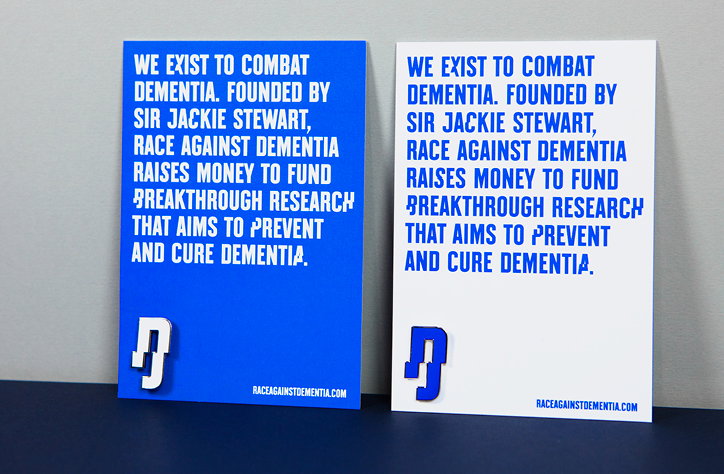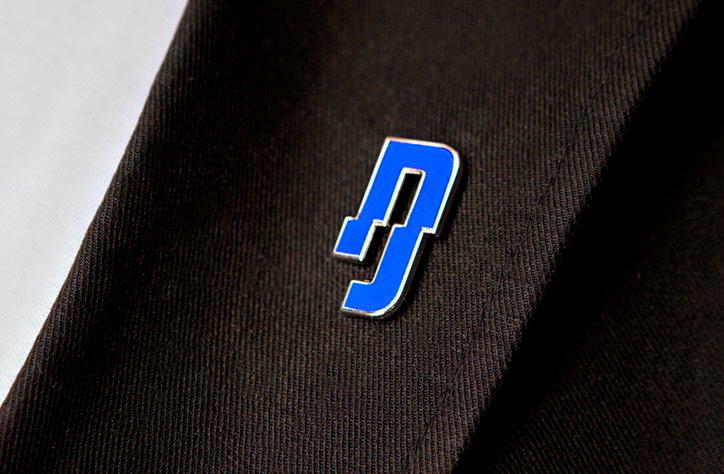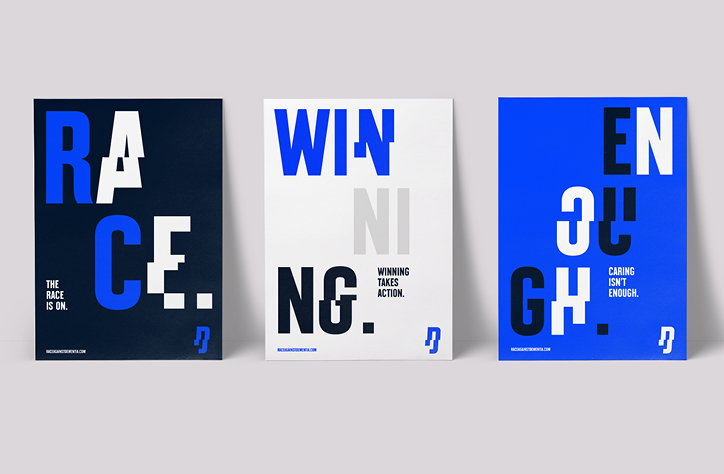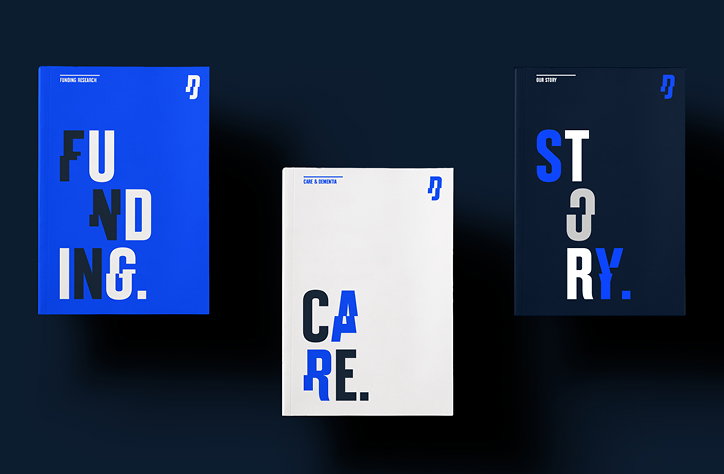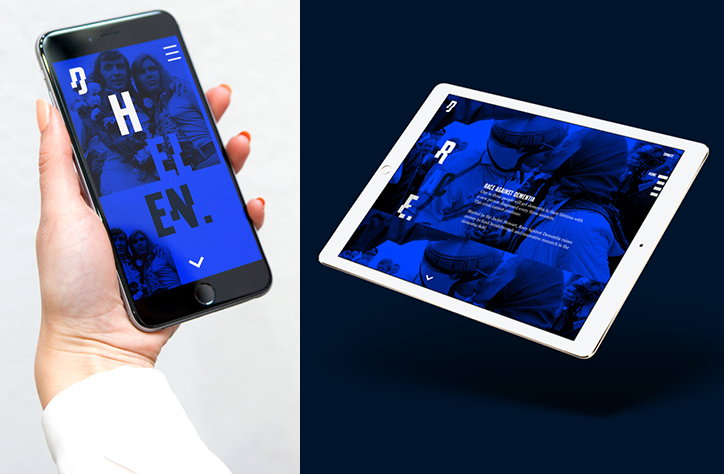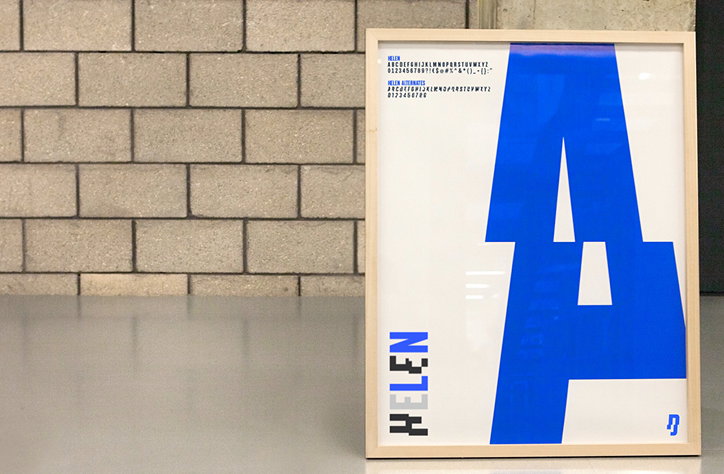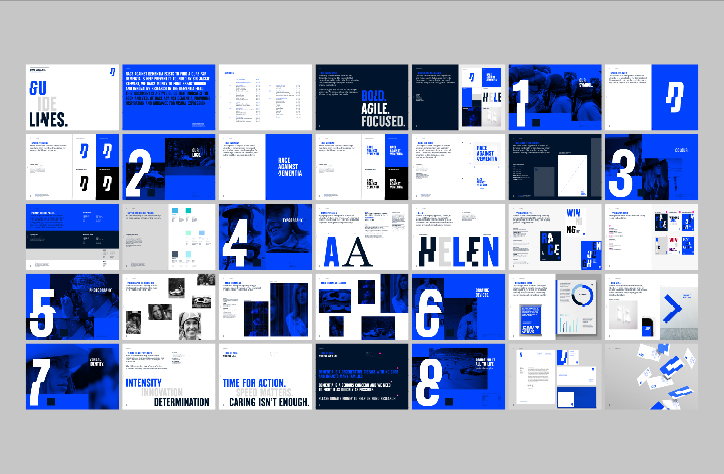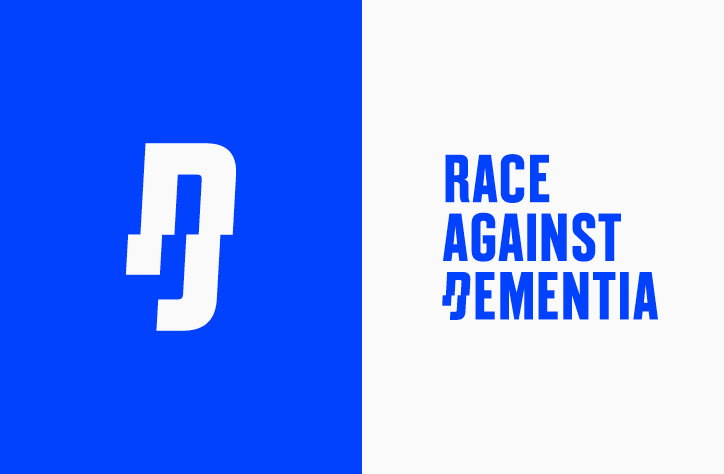
Brand Union and Colophon design fragmented typeface to convey Dementia
Brand Union has worked with font foundry Colophon to develop a typeface reflecting the disorientation of having Dementia. Created as part of Brand Union’s wider identity for Race Against Dementia, Formula One legend Jackie Stewart’s charity, the typeface has letters split halfway down and jolted to the side, a distortion that conveys the unsettling and disconnected nature of the disease.
Brand Union conceived the name Race Against Dementia and designed the charity’s bold and disruptive identity, which the agency explains is imbued with Jackie’s story and “the speed and thrill of motorsport.” As such the design uses a vivid blue colour palette that references the racing driver’s Scottish heritage and the colour characteristic of his cars. The agency also created a toolkit for photographic treatment using an archive of Jackie and Helen’s photographs.
The typeface is named Helen after Jackie Stewart’s wife, who has Dementia. The charitable initiative aims to raise awareness of the disease and fund research into a cure and preventative medicine.